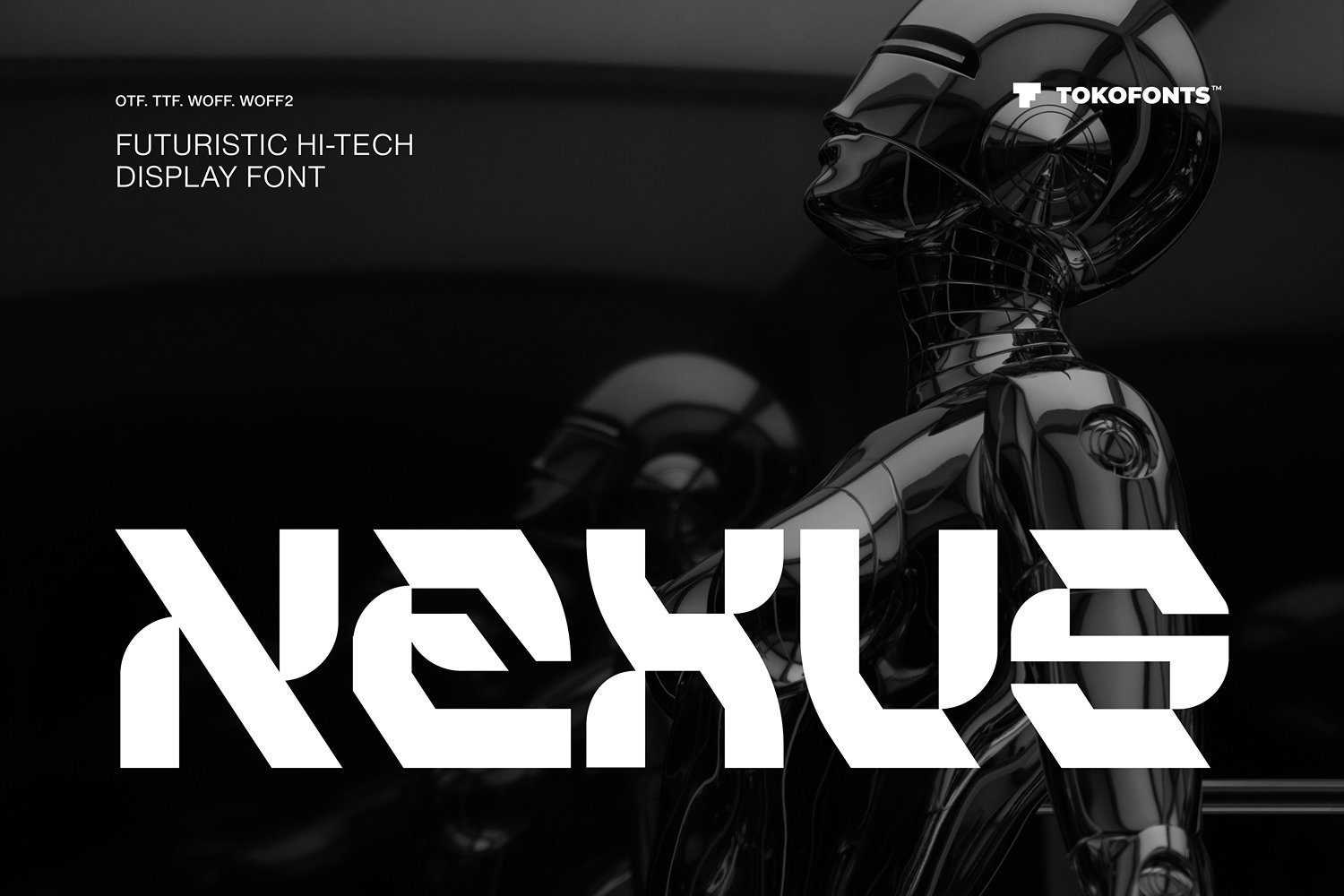
Nexus – Modern Techno Font
Nexus – Modern Techno Font brings a balanced structure and contemporary look, making it suitable for both digital and print design. Nexus is a modern futuristic display font crafted with a bold and clean technological aesthetic. Its sharp geometric shapes and digital-inspired letterforms create a strong contemporary identity that feels innovative and forward-looking. Designed to reflect the connection between modern design and advanced technology, Nexus delivers a sleek typographic presence perfect for modern logos and visual branding.
With its futuristic style, Nexus works perfectly for technology branding, gaming graphics, movie titles, posters, and animation projects. The font combines bold structure with a clean digital look, ensuring strong readability while maintaining a powerful modern character, making it ideal for creative projects that demand a striking and high-tech visual impact.